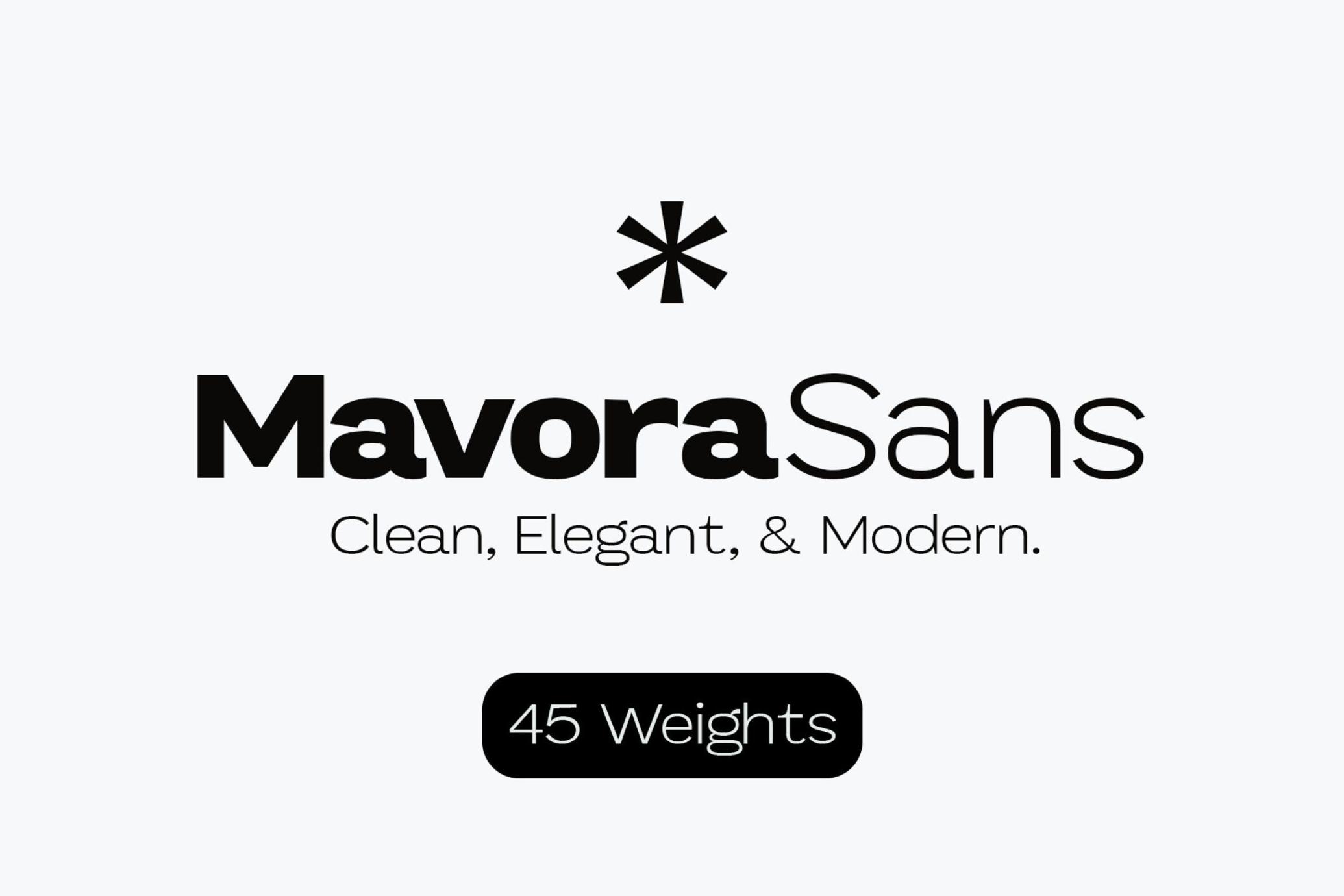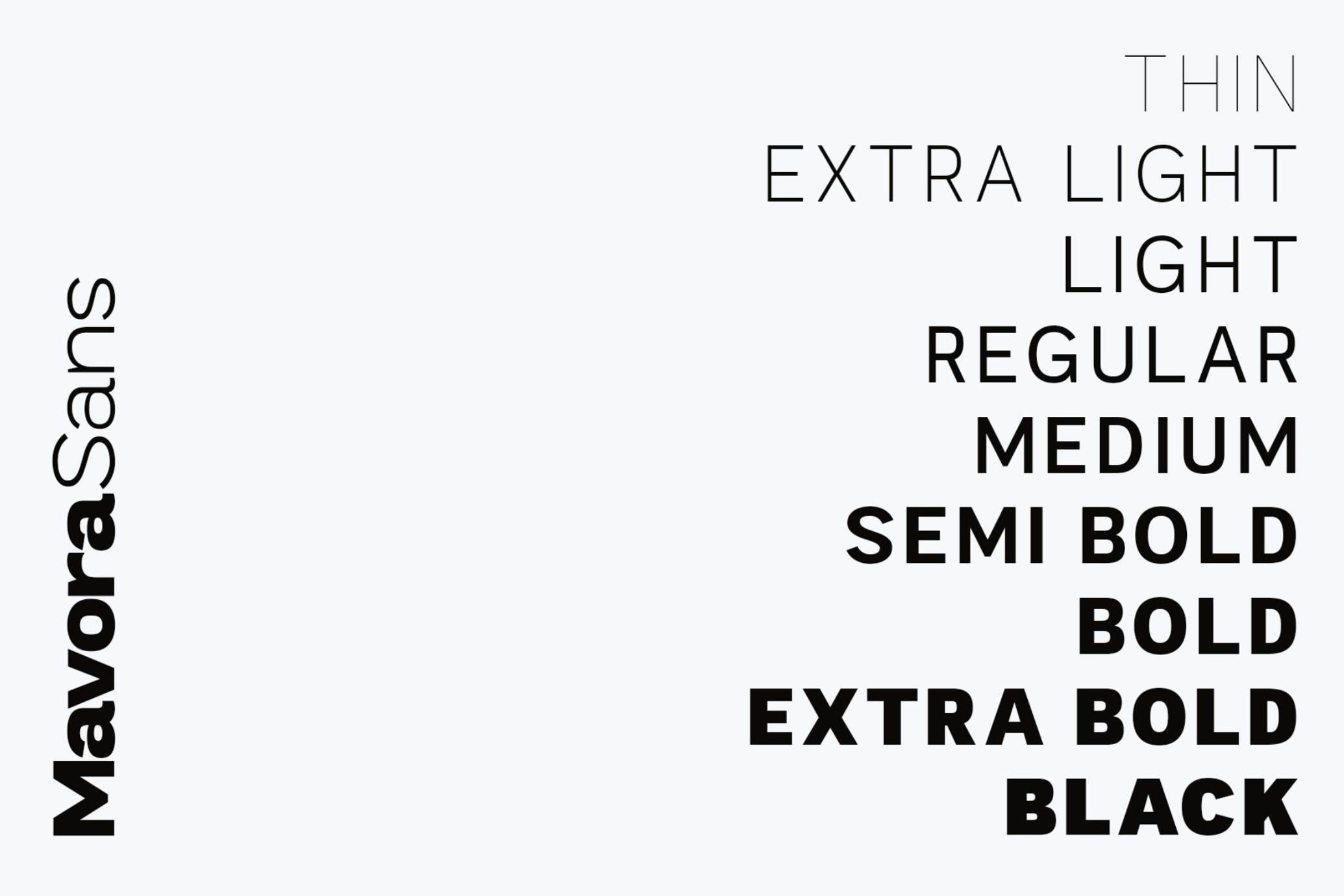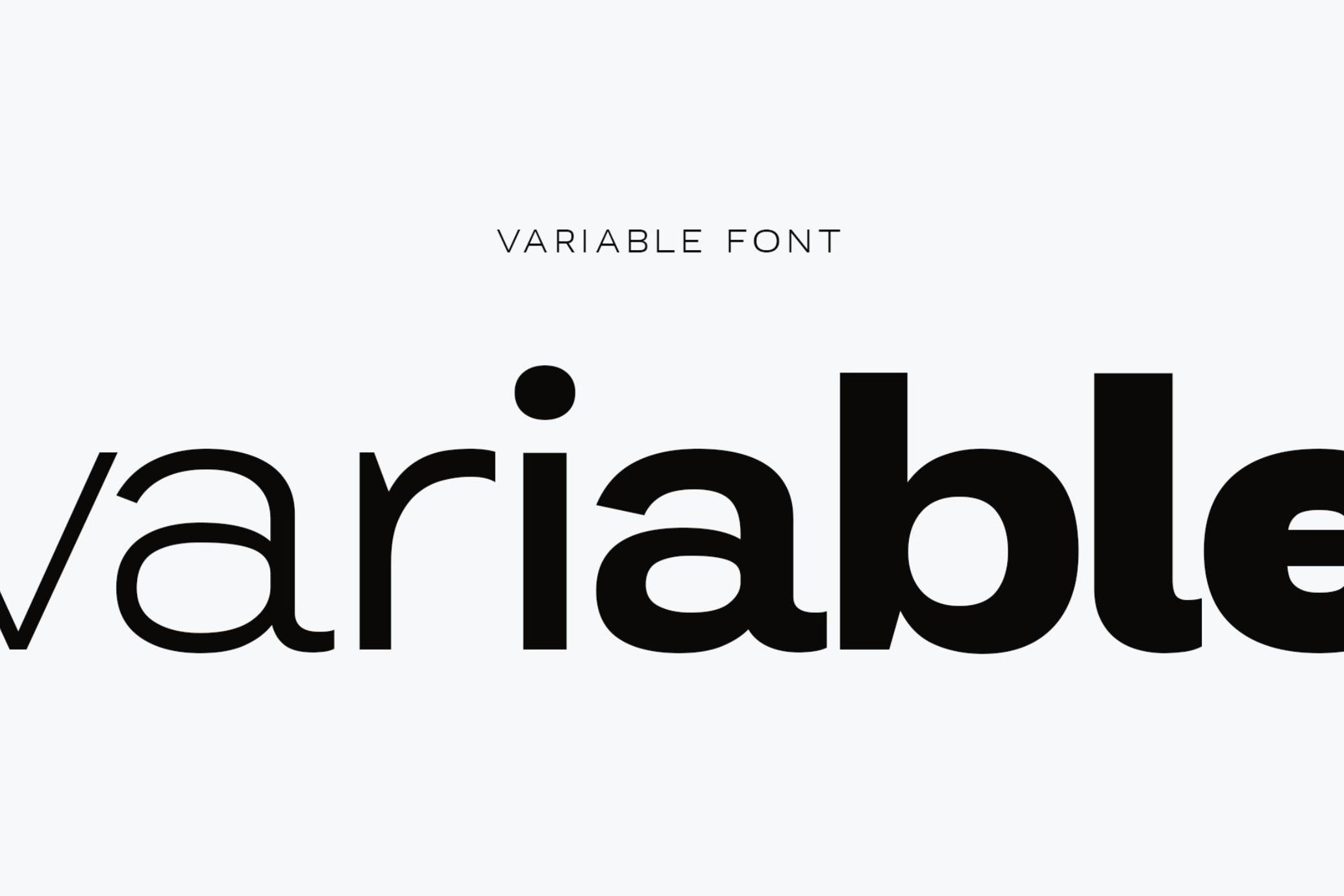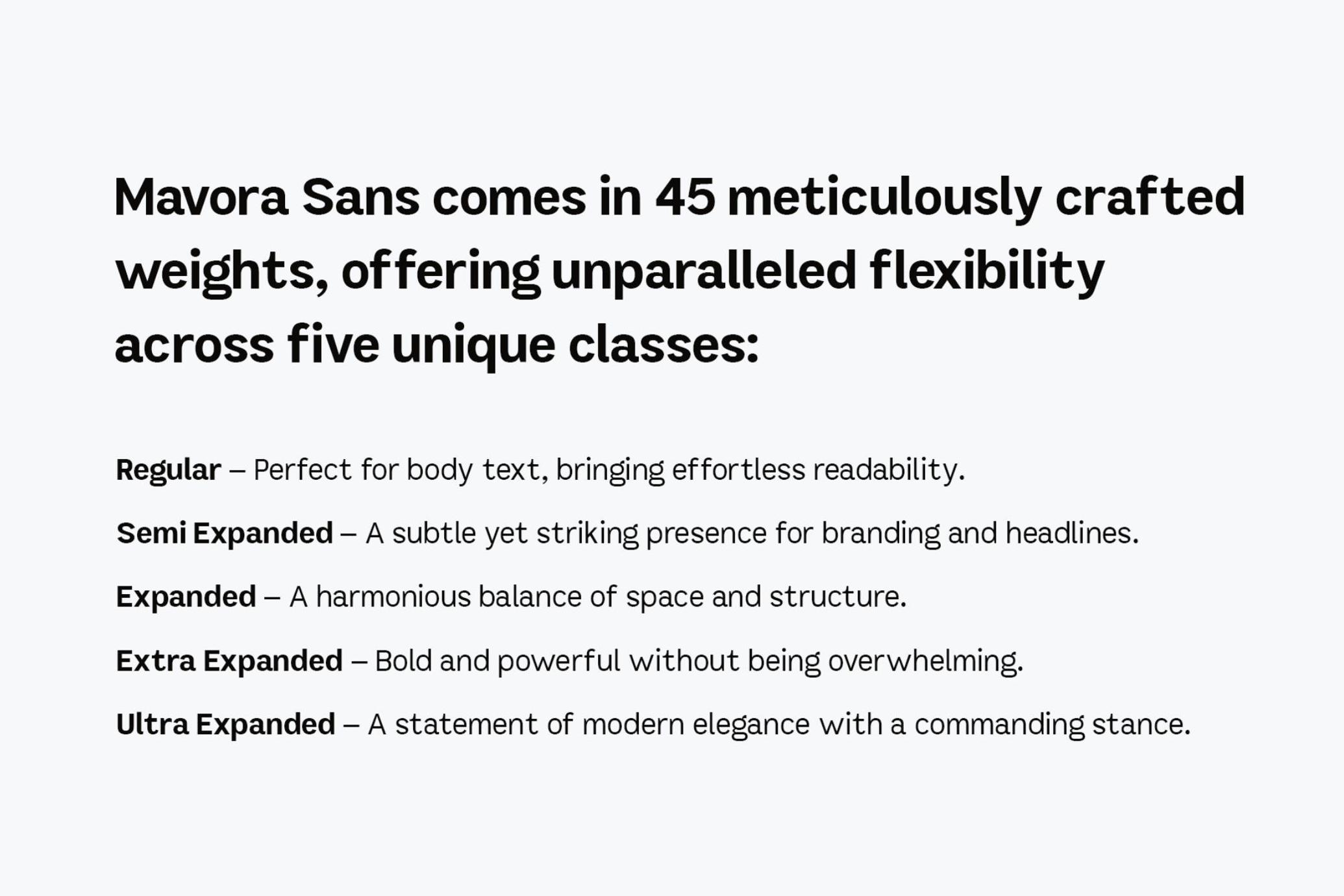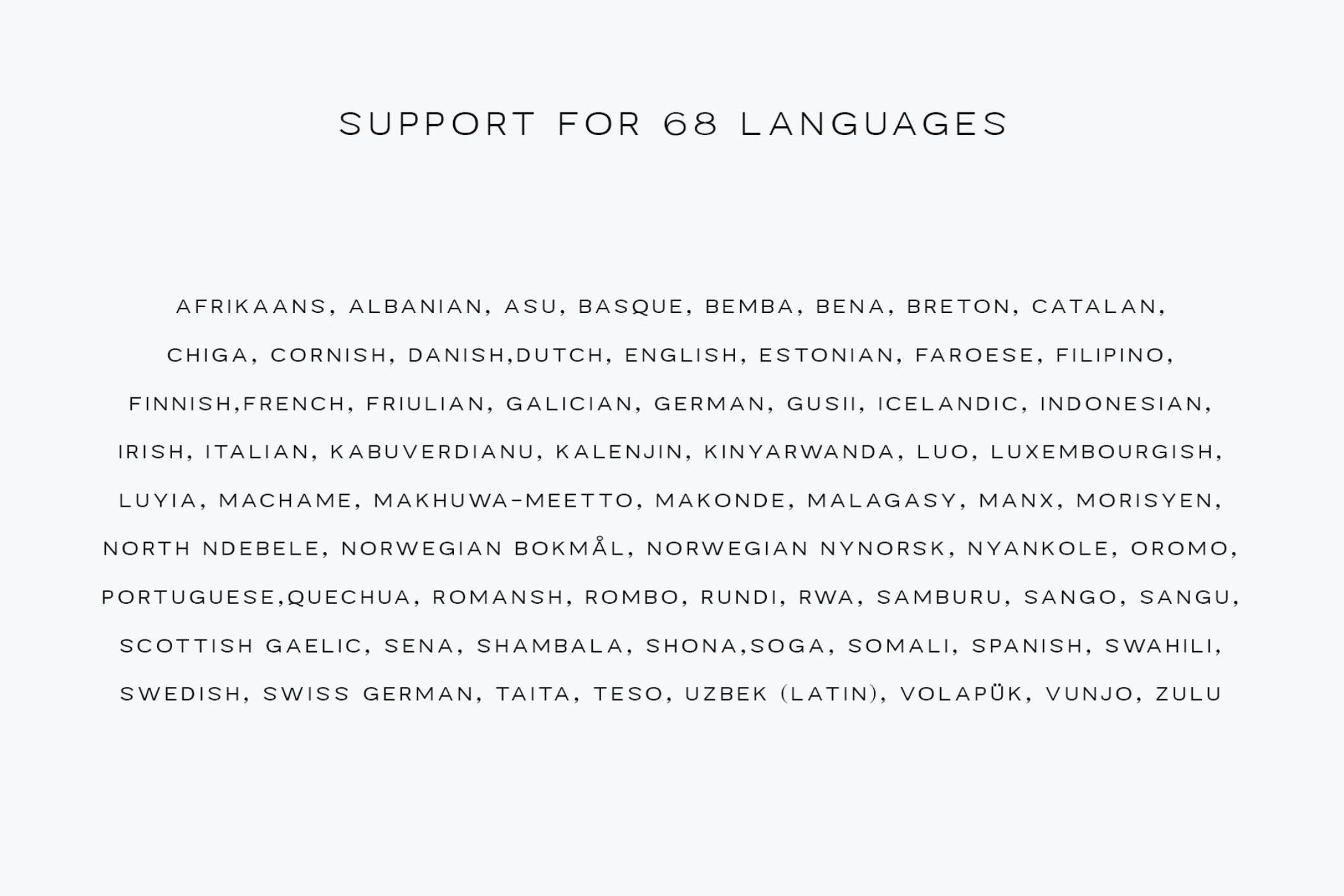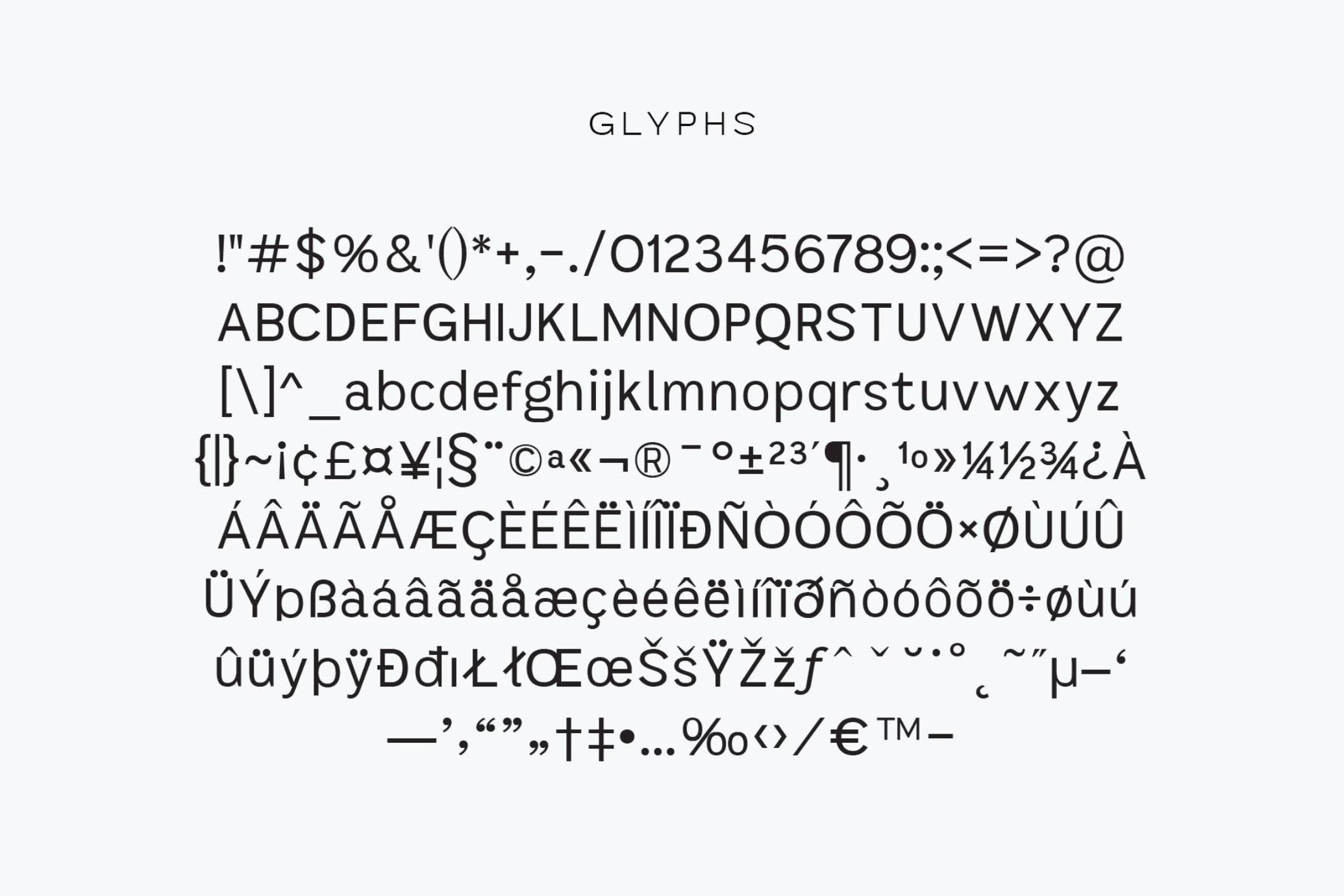
Mavora Sans Typeface - 45 Weights
Introducing Mavora Sans, the pinnacle of typographic excellence. A clean, modern, and minimal sans-serif designed to stand the test of time. Whether you're crafting a high-end brand identity, designing an elegant website, or shaping the future of editorial design, Mavora Sans is the only typeface you’ll ever need.
Some fonts fade with time. Mavora Sans is forever. With a design that is timelessly modern, this is a typeface that will look just as stunning 100 years from now as it does today. Whether you’re creating for print, digital, UI/UX, branding, advertising, or signage, Mavora Sans adapts seamlessly to any project.
This isn’t just another font. This is the future of typography. Mavora Sans is the typeface that will define generations of design—and it’s ready to be yours today.
Elevate your design. Experience Mavora Sans.